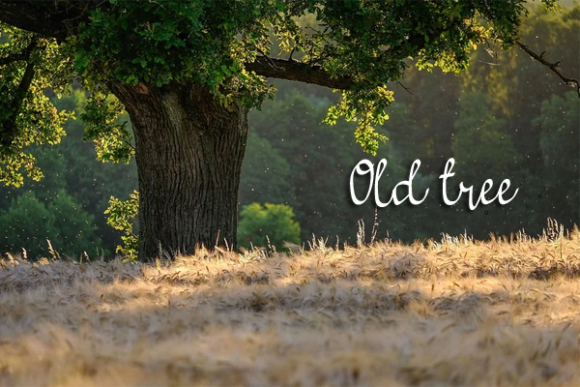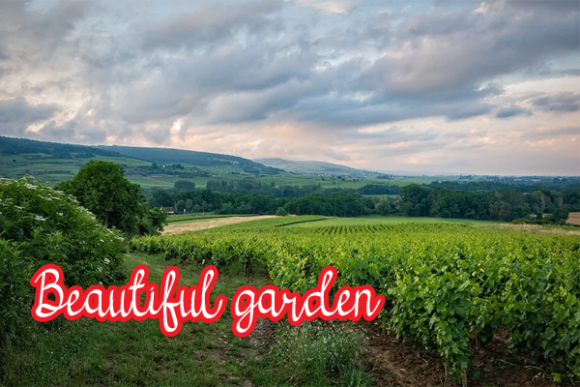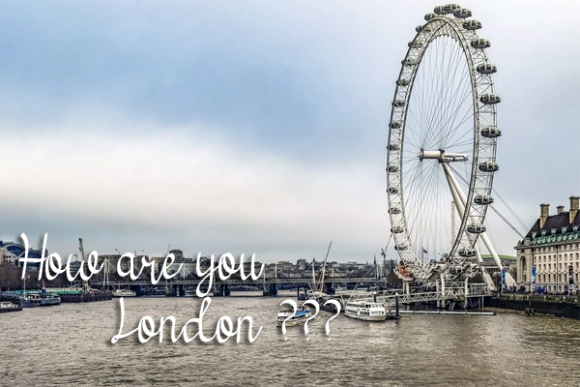
Introduction to Landskap Font
As a designer, have you ever been in the middle of a project and suddenly, the perfect font pops into your head? For me, that moment was when I stumbled upon the Landskap Font. Its elegant, handwritten touch was exactly what my creative project needed to take it to the next level.
The Landskap Font is more than just a design resource – it’s a high-quality addition to any project. Its unique, flowing style is perfect for adding a touch of sophistication to your designs. Whether you’re working on a logo, brochure, or website, the Landskap Font is sure to elevate your work. And the best part? It’s free to download and use on a transparent background, making it a valuable asset for any designer.
With its timeless style and versatility, the Landskap Font is a must-have for any creative project. In this article, we’ll dive deeper into the world of this stunning font and explore why it’s a valuable addition to your design arsenal.
Key Features of Landskap Font
- Available for free download, making it a valuable resource for designers and artists.
- Landskap Font comes in a transparent background, allowing for seamless integration into various design compositions.
- Features a large character set, including Latin and Cyrillic alphabets, making it suitable for various language requirements.
- Designed with a high resolution (300 DPI), ensuring crisp and clear typography in print and digital applications.
- Perfect for designers seeking a high-quality, free design resource to enhance their creative projects.
Honest Review: Landskap Font
I recently had the opportunity to experiment with the Landskap Font, and I must say it’s a fantastic addition to any creative project. This high-quality font is perfect for designers who want to add a unique touch to their work.
Here are some of the things that I like about the Landskap Font: ✨
- Transparency: The transparent background allows for seamless integration with any design element.
- Free download: The font is available for free download, making it an excellent design resource for designers on a budget.
- Flexibility: The Landskap Font is highly versatile and can be used in a wide range of creative projects.
However, I did encounter a few limitations: ⚠️
- Limited language support: The font may not be compatible with all languages, which could be a problem for designers working on projects with multiple languages.
- Not suitable for small text: The font may be too bold and overwhelming for small text, so designers need to use it judiciously.
Overall, I’m impressed with the Landskap Font and would highly recommend it to designers looking for a high-quality, unique font to add to their design arsenal.
Landskap Font
The Landskap Font is a versatile and high-quality design resource ideal for creative projects. It features a transparent background, making it perfect for overlaying on images or using as a standalone element.
Tips for Getting the Most Out of Landskap Font
To get the most out of Landskap Font, use it in combination with high-quality images and experiment with different font sizes and styles. You can also use it to create a consistent design language across your project.
The Landskap Font is ideal for a variety of use cases, including:
- Branding and identity design
- Marketing materials, such as brochures and flyers